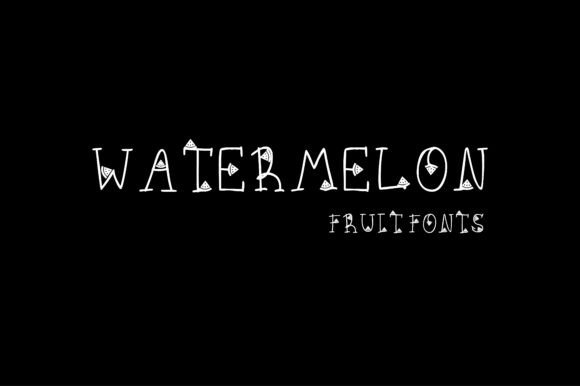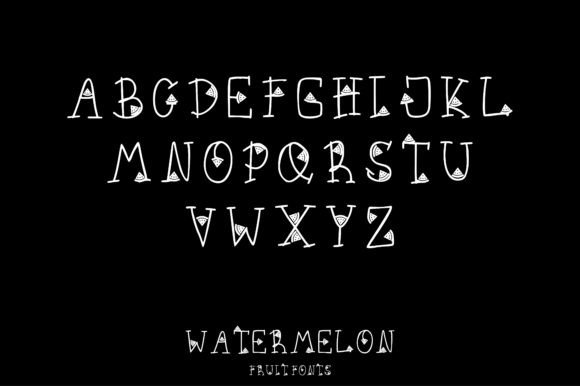
Watermelon Font
About Watermelon Font
**”Watermelon”** is a cute and friendly handwritten font that brings a playful and approachable vibe to your design projects. With its charming and casual style, this font is a valuable addition to your font library, offering the potential to enhance a wide range of creations.
The cuteness and friendliness of **”Watermelon”** make it suitable for various design topics and applications. Whether you’re working on greeting cards, social media graphics, posters, crafts, or any other creative project, this font adds a sense of playfulness and approachability to your designs.
In greeting cards, **”Watermelon”** infuses a sense of charm and lightheartedness. It enhances the overall appeal of your cards, making them more engaging and delightful for recipients.
Social media graphics designed with **”Watermelon”** have a friendly and relatable quality. The font’s casual and approachable appearance resonates with online audiences, making your content more appealing and shareable.
Posters and crafts benefit from the cute and friendly aesthetics of **”Watermelon.”** It can be used to create typography that captures attention and adds a playful touch to your visuals.
The versatility of **”Watermelon”** makes it suitable for a wide range of creative endeavors, offering a font that can enhance any topic or theme.
In summary, **”Watermelon”** is a cute and friendly handwritten font that brings a playful and approachable vibe to your design projects. Its versatility and charm make it a valuable choice for greeting cards, social media graphics, posters, crafts, and any project where a sense of cuteness and friendliness is desired.